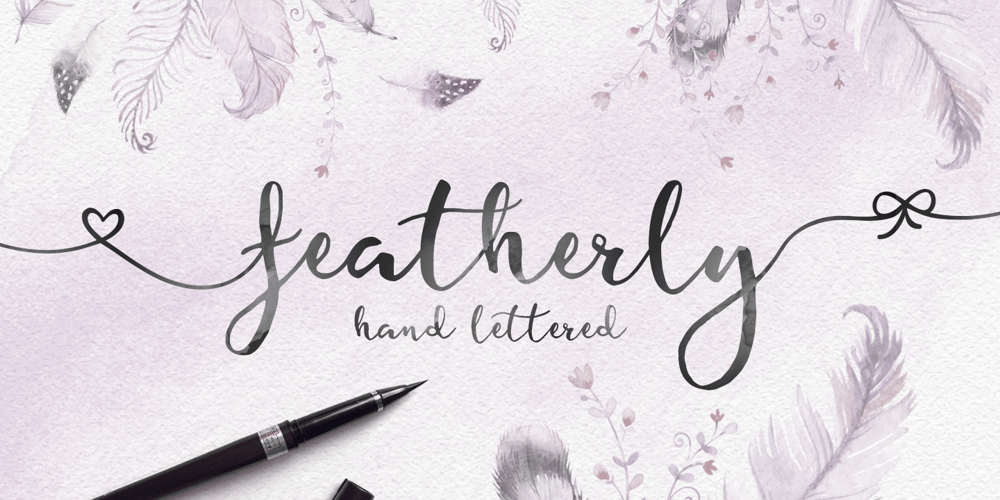
Featherly Handlettered Font Family was designed by Joanne Hewitt and published by Joanne Marie. Featherly Handlettered contains 1 styles and family package options. I had to do it ๐ – A hand lettered version of featherly is here!As always with featherly, it’s perfect for anything to do with romance, weddings and love but this hand lettered version can give you an even more authentic, handmade look to your designs.There are 26 left and right swashes. No alternates with this one though. Hence the lower price.